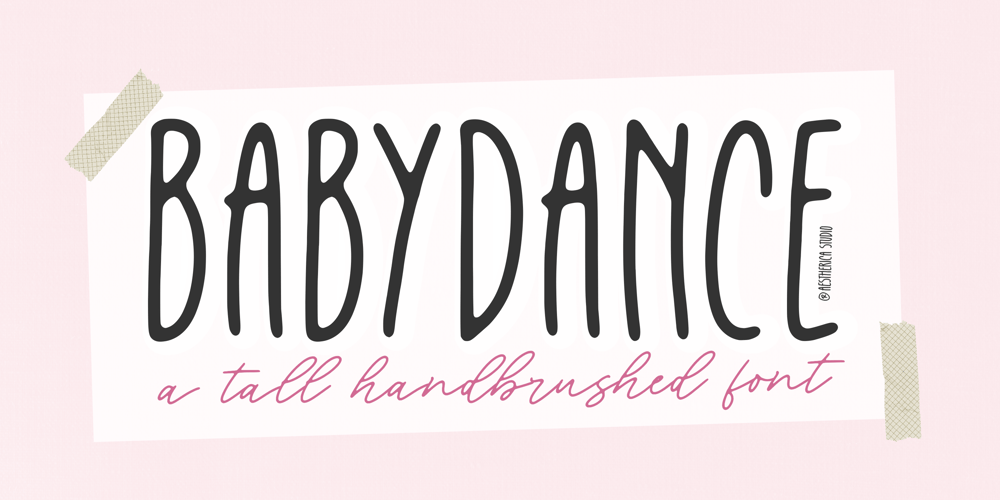
Babydance Font Family was designed by Muhammad Fathurrohman and published by Aestherica Studio. Babydance contains 1 styles and family package options. Introducing the new Handwritten Script Font by Aestherica Studio.Babydance is perfect for product packaging, branding project, megazine, social media, wedding, or just used to express words above the background.Babydance also multilingual support.Thank You